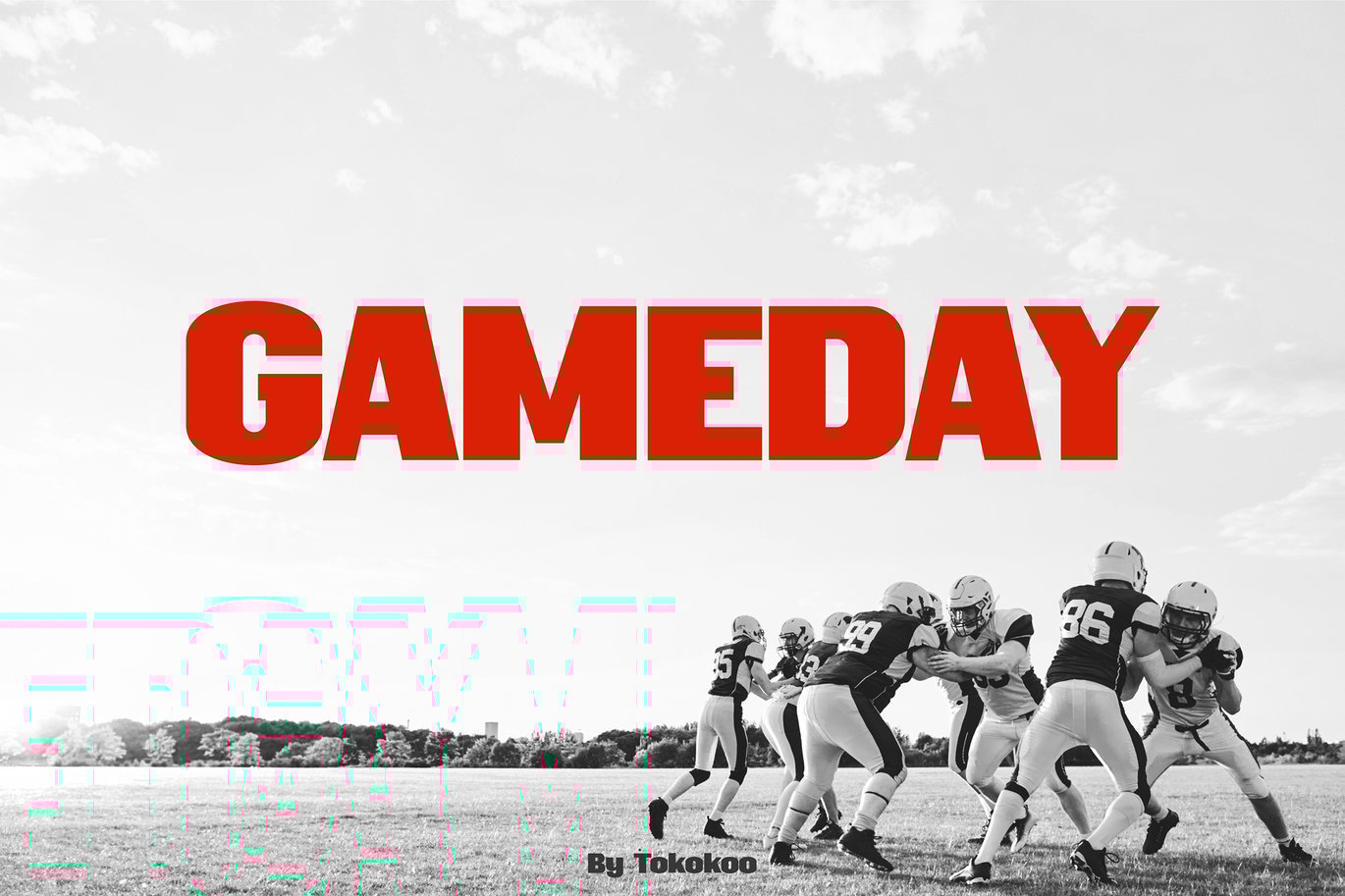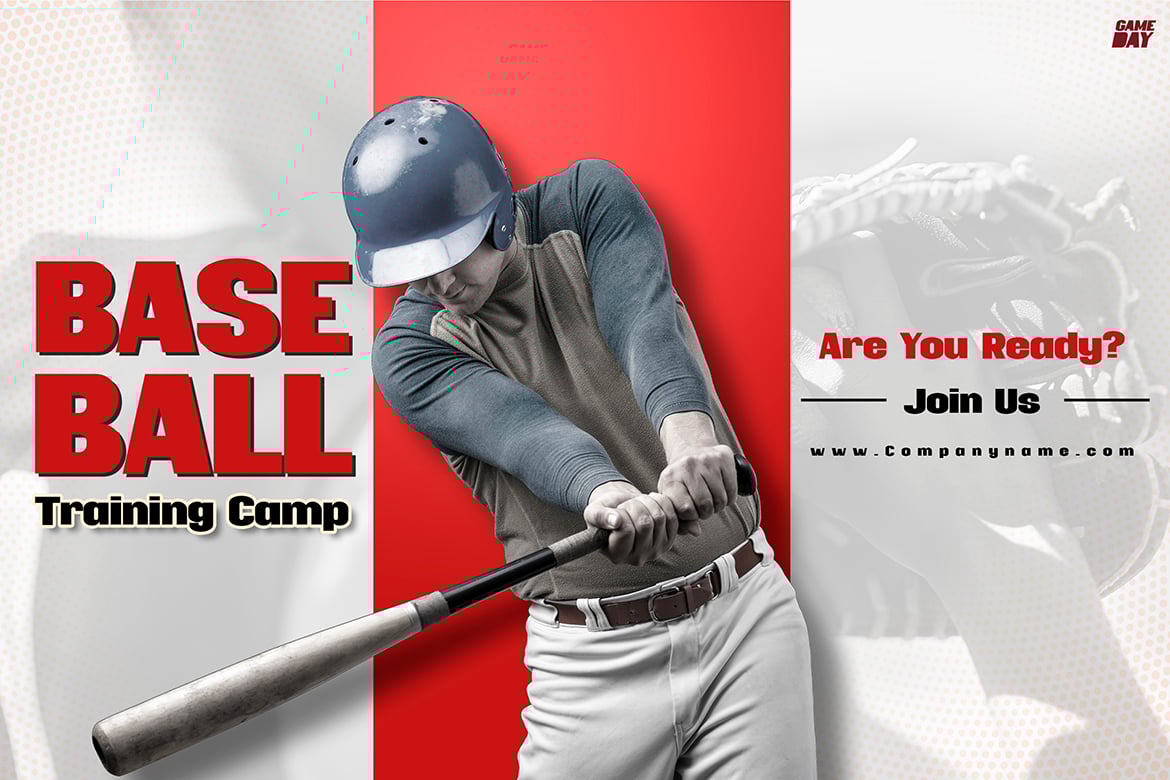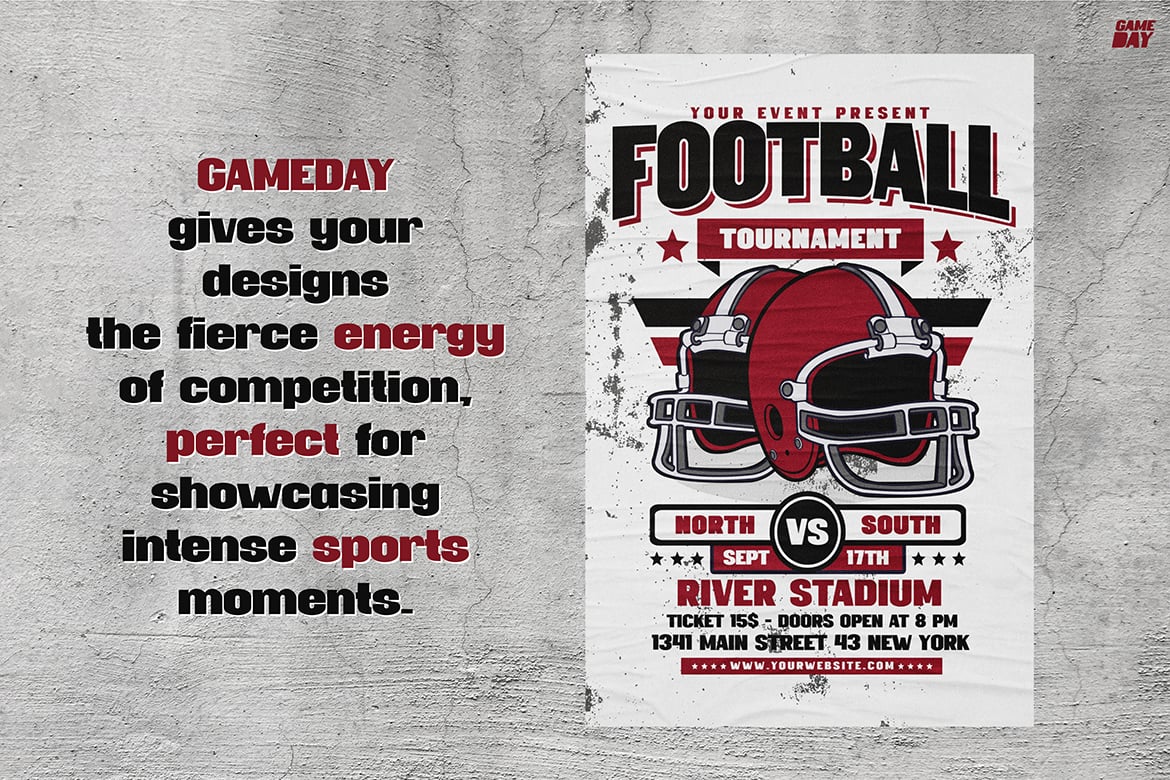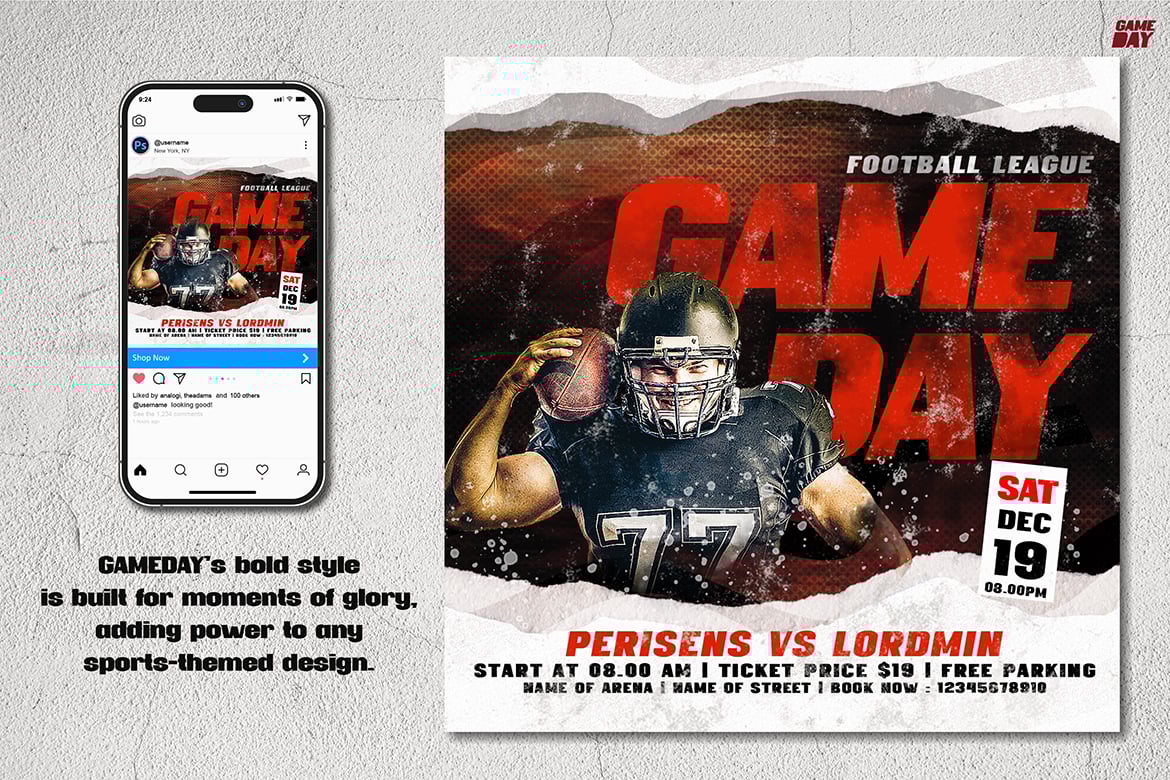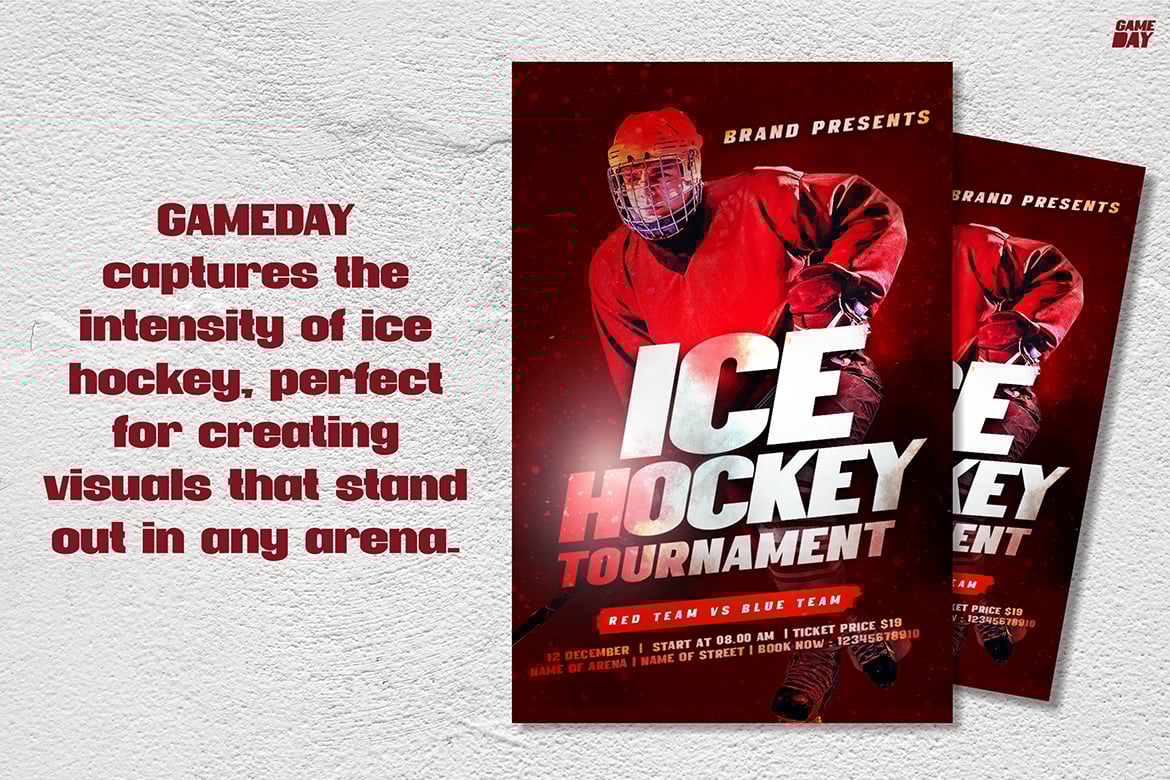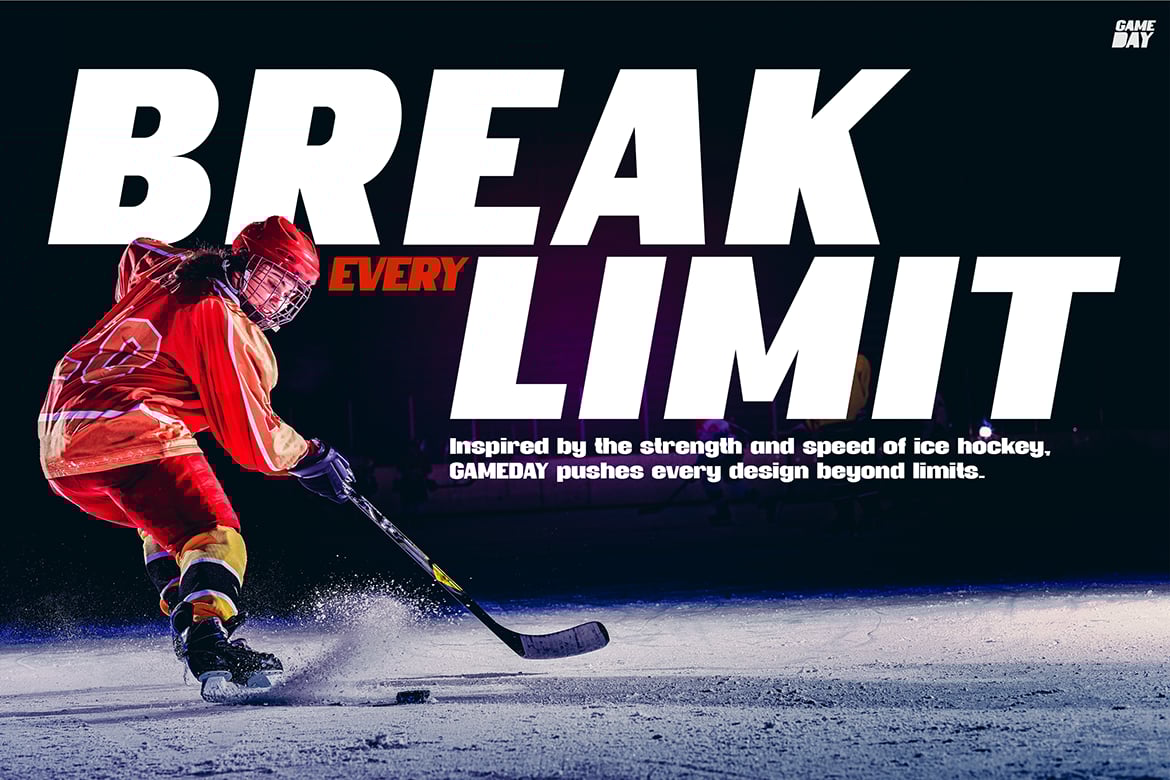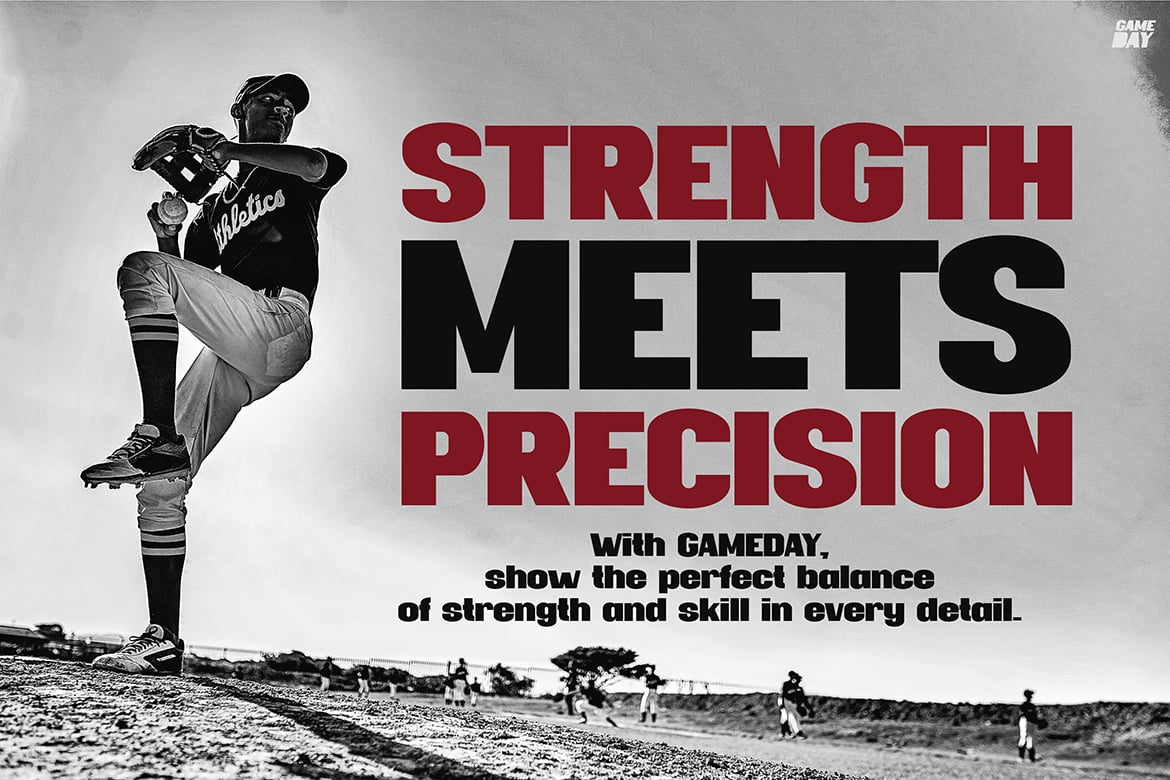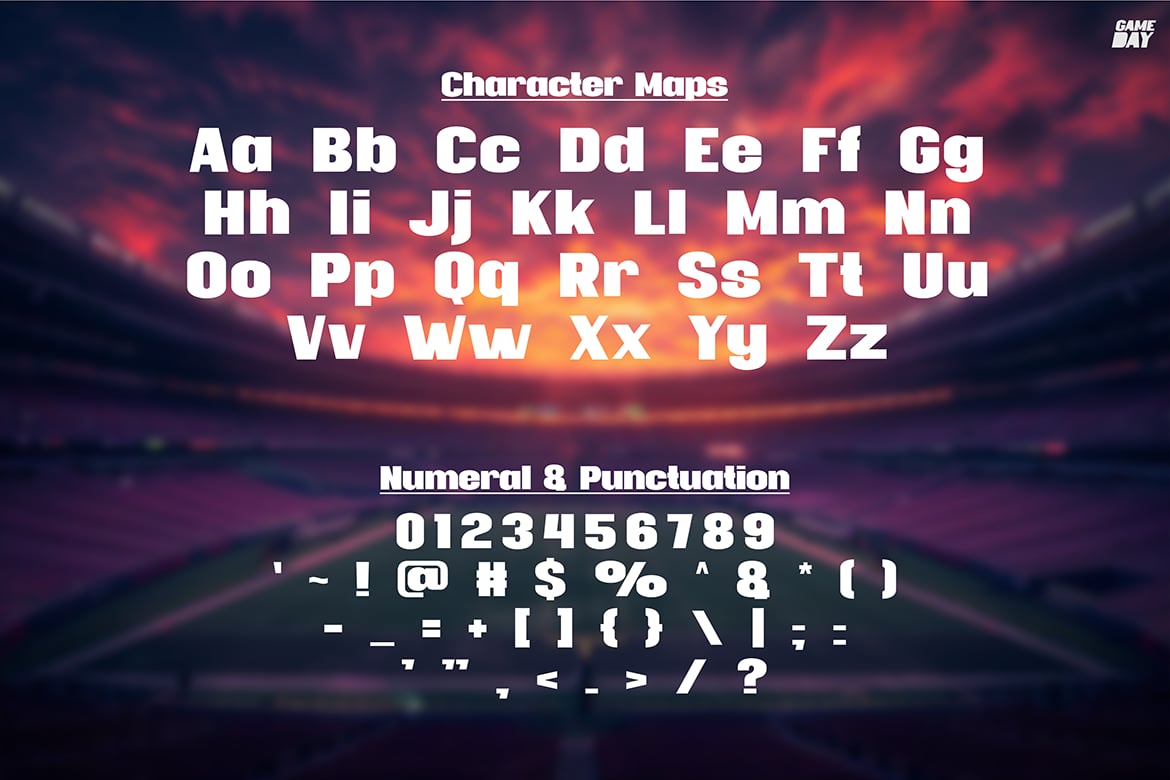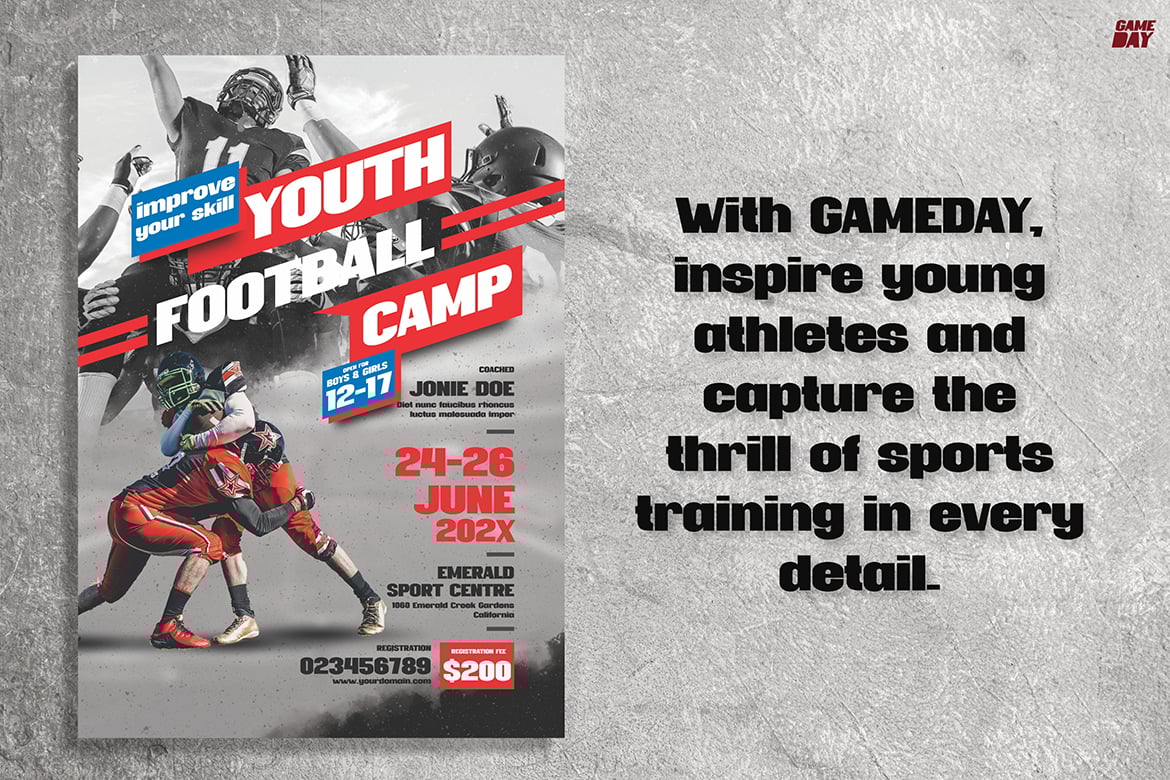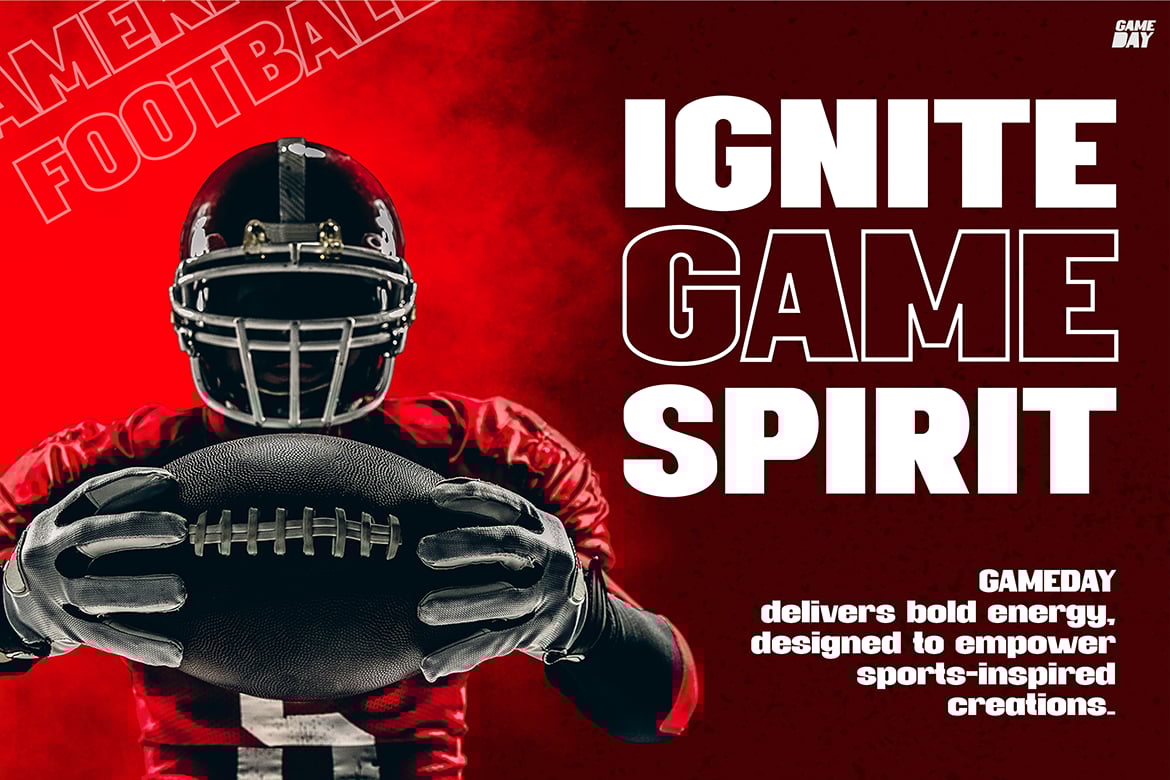
Sport Font – Gameday
GAMEDAY is a powerful, sports-inspired display font that radiates energy and competition. With bold, impactful letterforms, this font captures the excitement and intensity of game day, making it ideal for sports-related projects. Its dynamic style suits designs that aim to inspire action, confidence, and a competitive spirit.
Market Applications
Sports Branding & Merchandise GAMEDAY is perfect for sports team logos, jerseys, and merchandise. Its bold style enhances brand identity for teams, leagues, or sports events, adding an intense and professional look.
Event Posters & Banners Ideal for promoting sporting events such as tournaments, championships, and pep rallies. GAMEDAY’s bold typeface commands attention, making it a strong choice for eye-catching posters and banners.
Fitness & Gym Marketing For gym branding, motivational posters, or fitness product packaging, GAMEDAY brings a sense of power and strength. It aligns well with the energetic atmosphere of fitness spaces.
Sportswear & Apparel This font works well on athletic apparel designs, such as workout gear, caps, and t-shirts. Its bold letterforms give a confident and sporty vibe, ideal for brands in the athletic apparel market.
Digital Media & Social Content GAMEDAY adds visual impact to social media posts, ads, and digital banners for sports and fitness brands. It’s perfect for announcements, scores, and inspirational messages that need a strong visual statement.